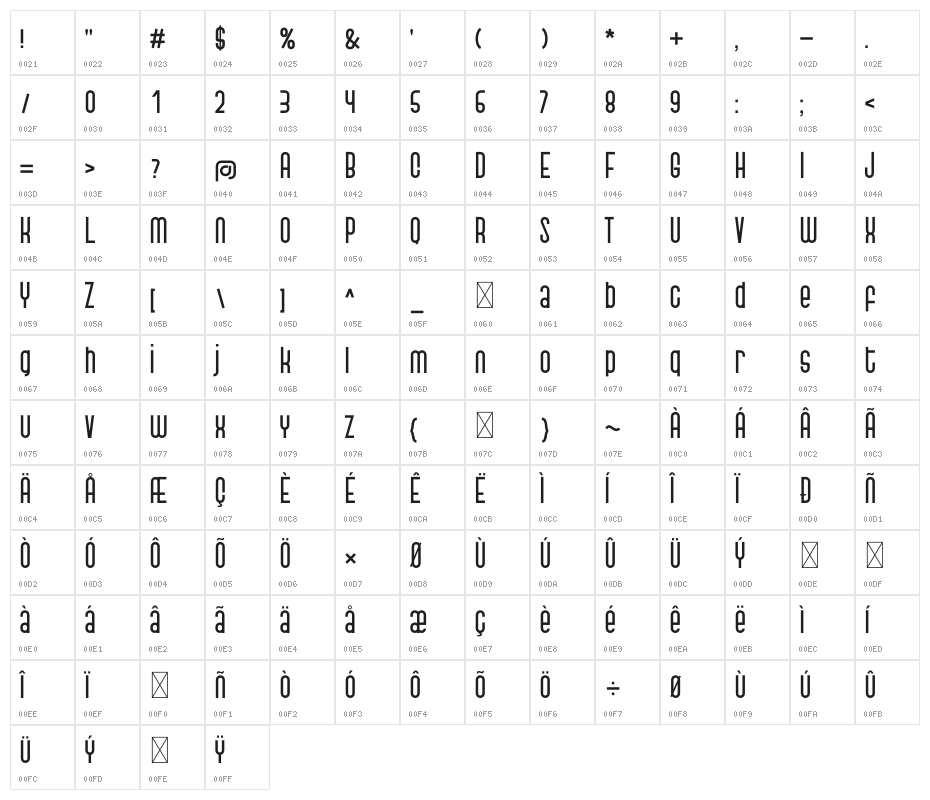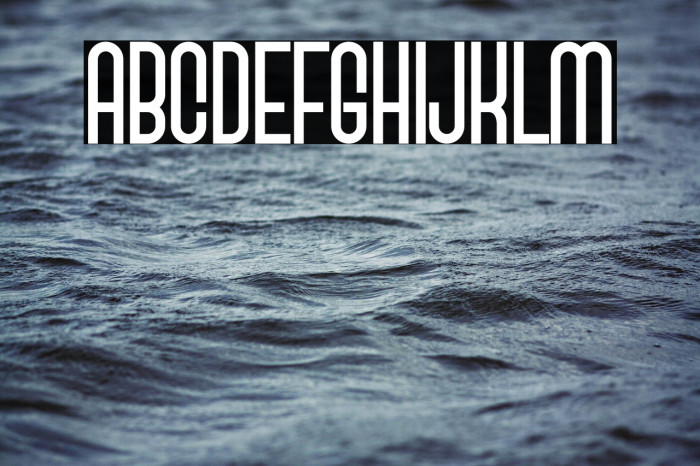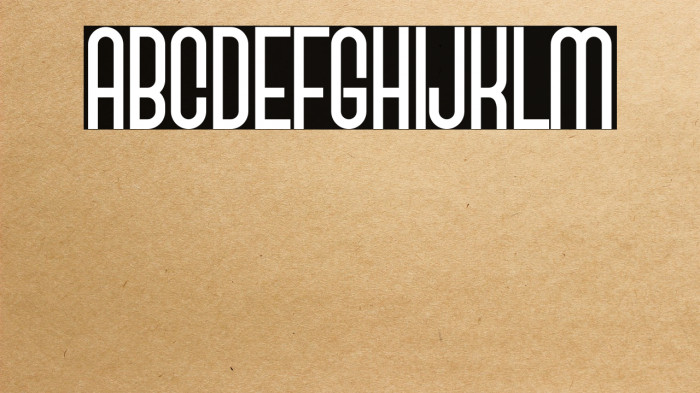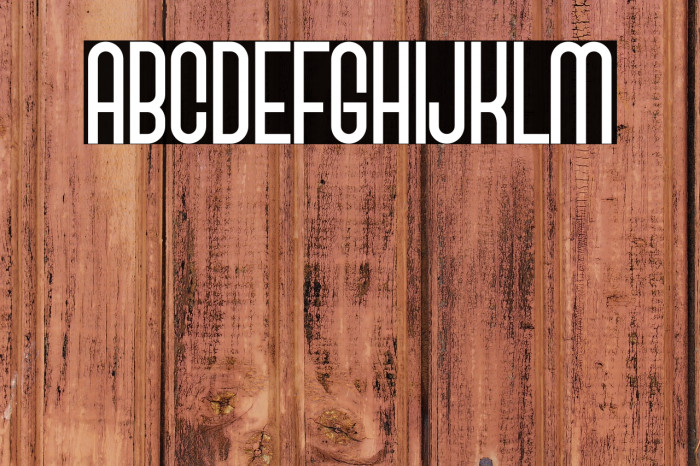
Piemonte Font
Piemonte Description
This font features a modern and sleek design with elongated, narrow characters that give it a distinctive and stylish appearance. The uppercase and lowercase letters maintain a consistent height, contributing to a uniform look. The numerals are clear and easy to read, while the special characters are well-integrated into the overall design. The font's clean lines and minimalistic style make it suitable for contemporary projects. Its unique character shapes, particularly the rounded edges and smooth curves, add a touch of elegance and sophistication.